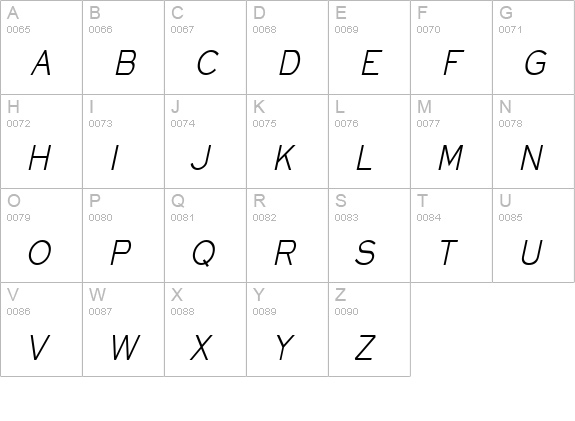
Eye glass Thin Italic Font Details
Eye glass Thin Italic is a delicate, low-contrast, italic variant in the Eye typeface family \xE2\x80\x94 well suited to fashion editorial, minimal branding, and high-contrast display.
Introducing Eye glass Thin Italic font, a sleek and modern typeface perfect for adding a touch of elegance to your designs. This sophisticated font features slender lines and a subtle italicized style, making it ideal for projects that require a refined and contemporary look. Eye glass Thin Italic font is not only visually appealing but also highly versatile, suitable for a wide range of design applications including branding, editorial design, packaging, and more. Its clean and minimalistic appearance will effortlessly elevate any project it is used in, adding a touch of sophistication and class. Best of all, Eye glass Thin Italic font is available for free download at FontsMarket.com. So, if you're looking to enhance your designs with a stylish and modern typeface without breaking the bank, look no further than Eye glass Thin Italic font. Download it today and take your projects to the next level!